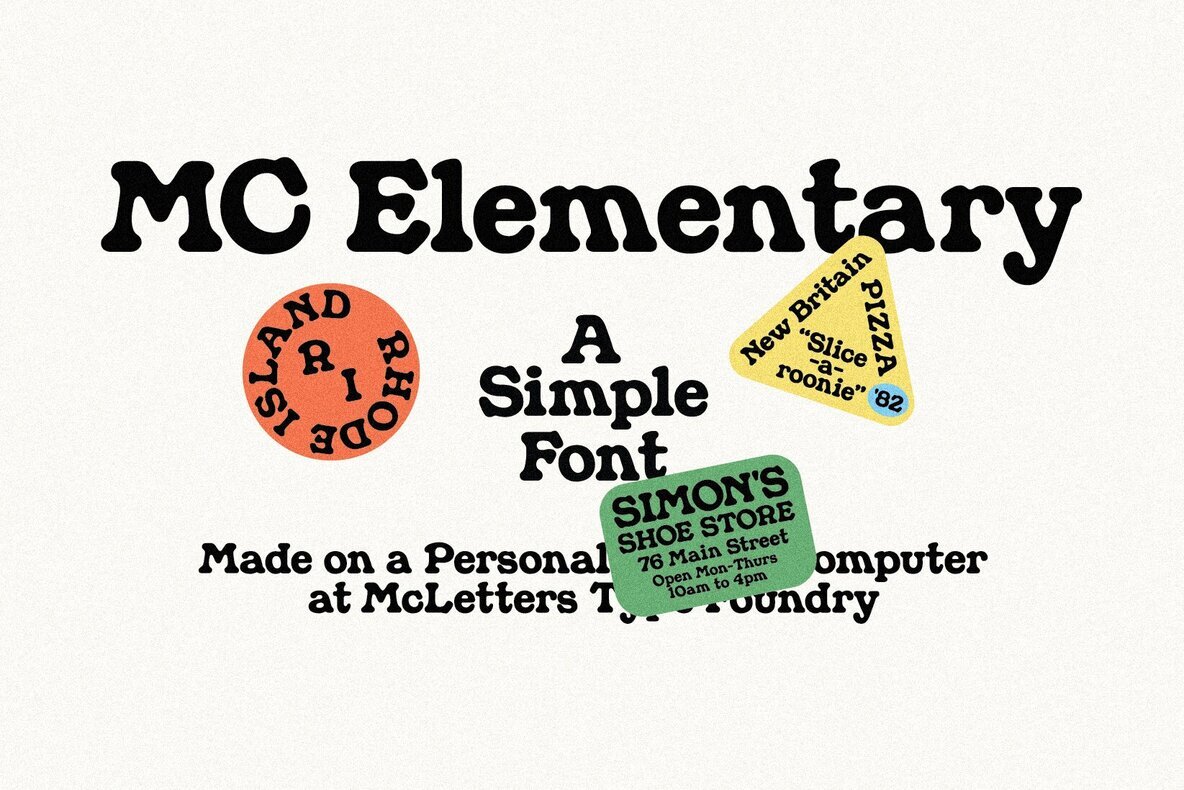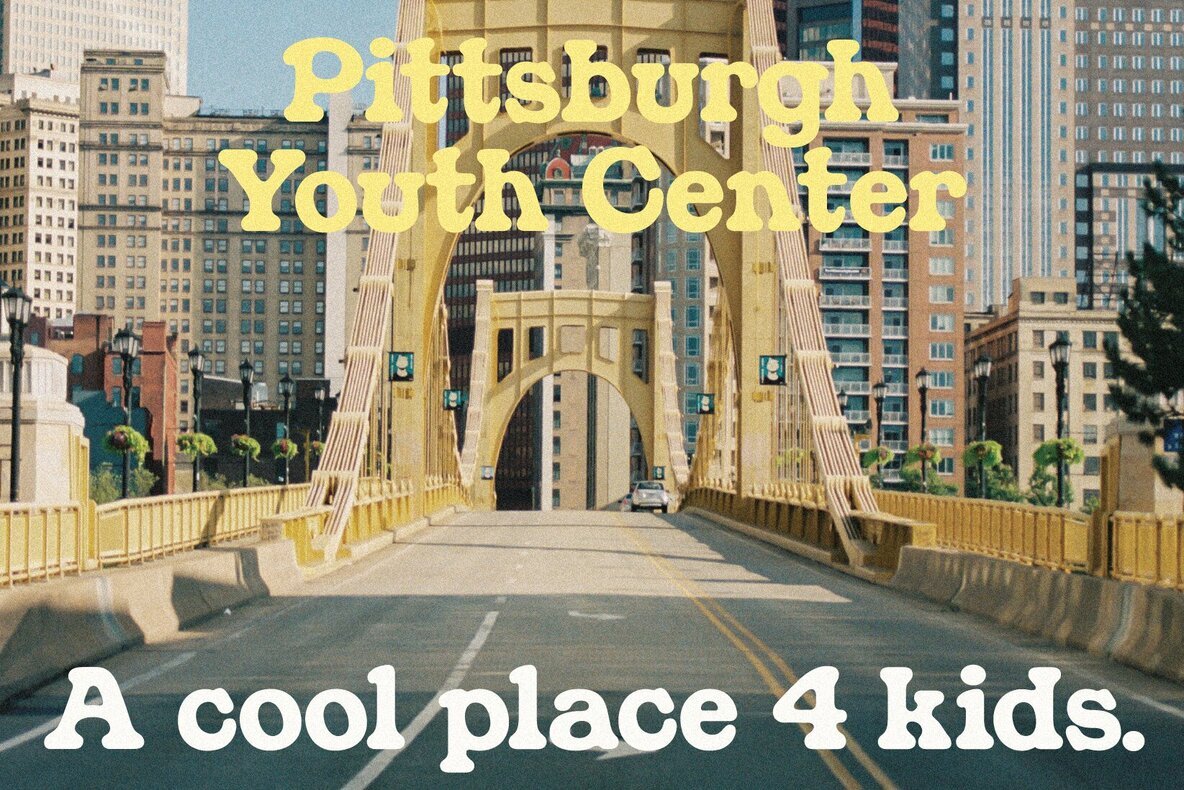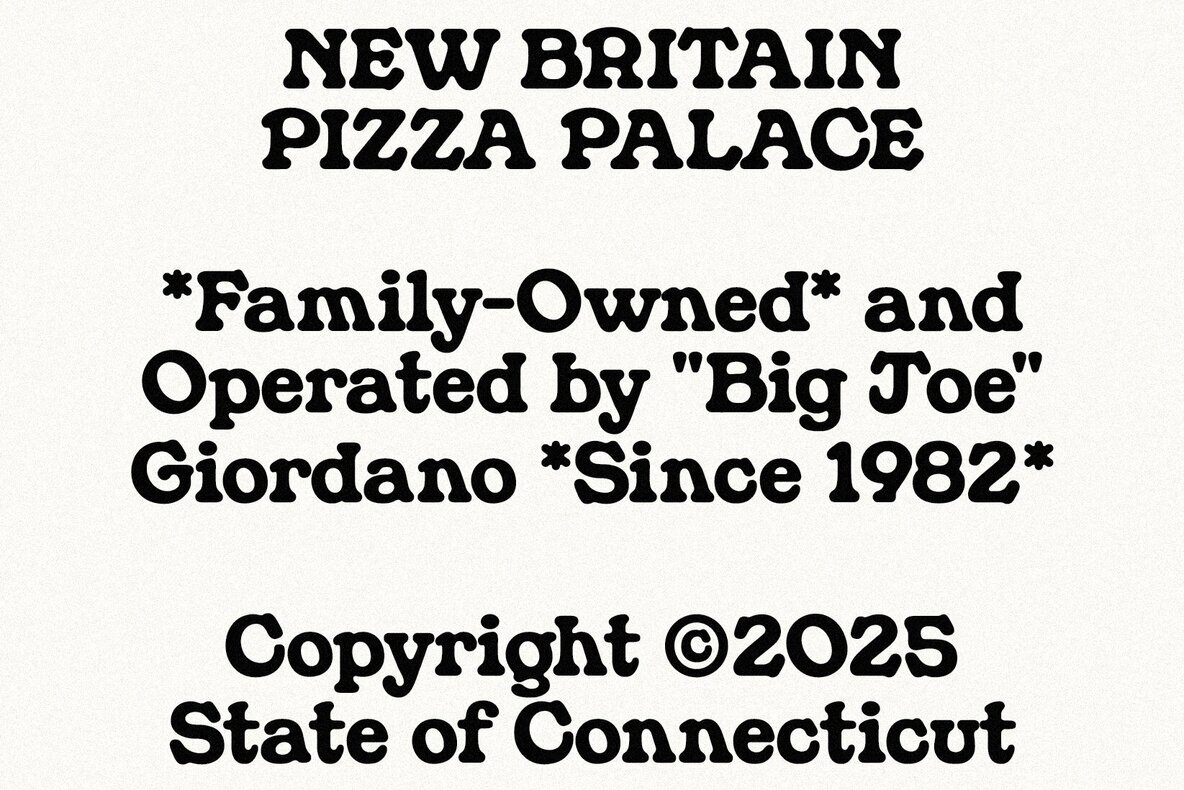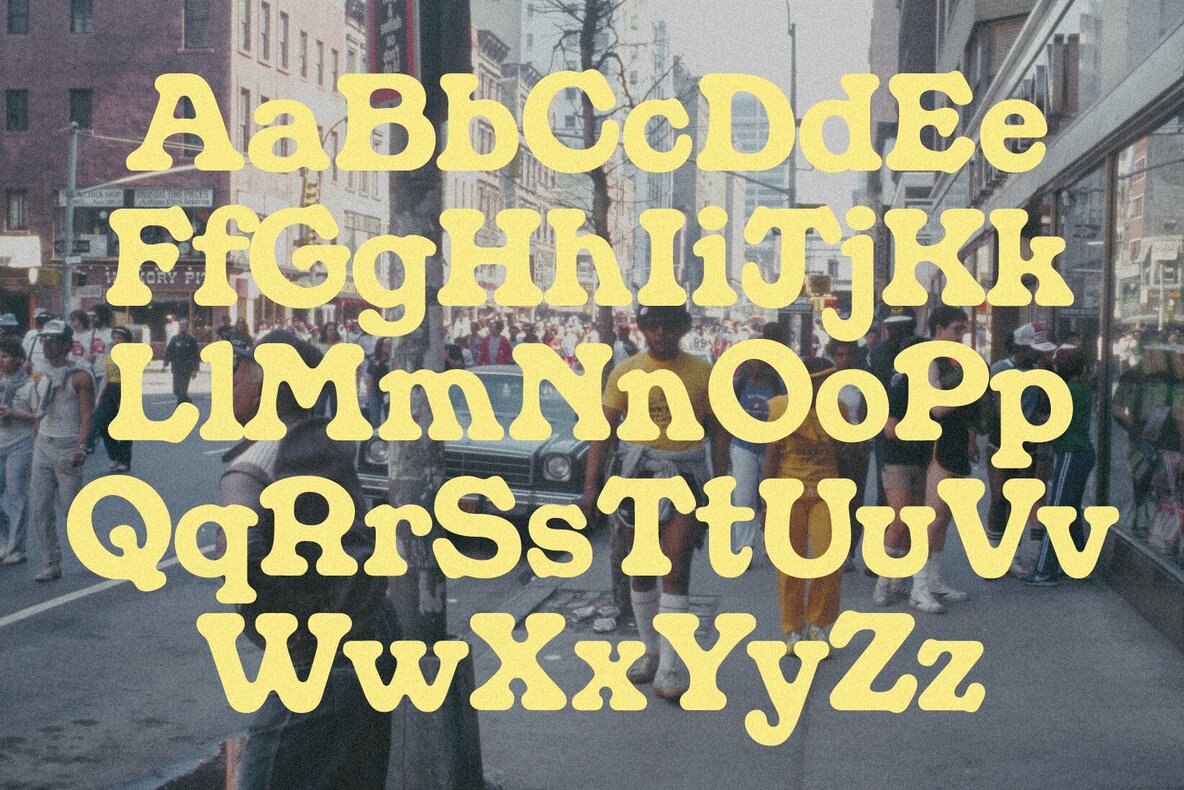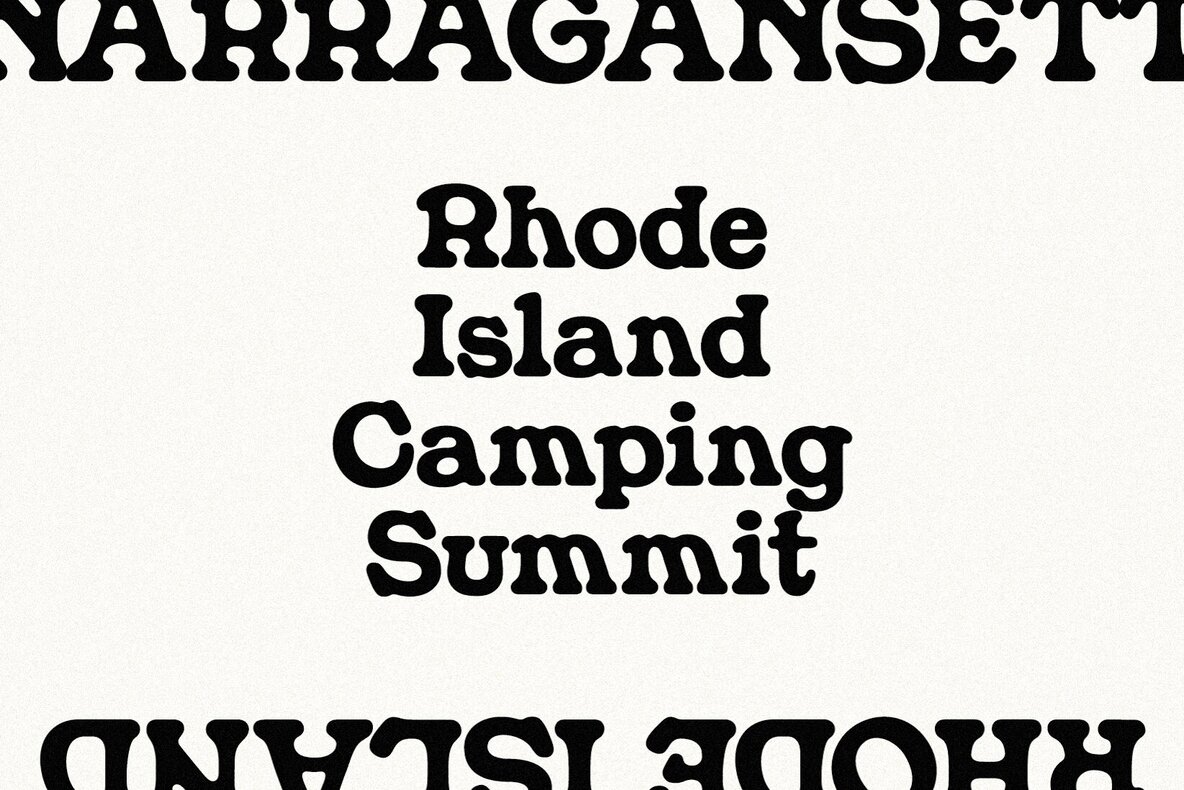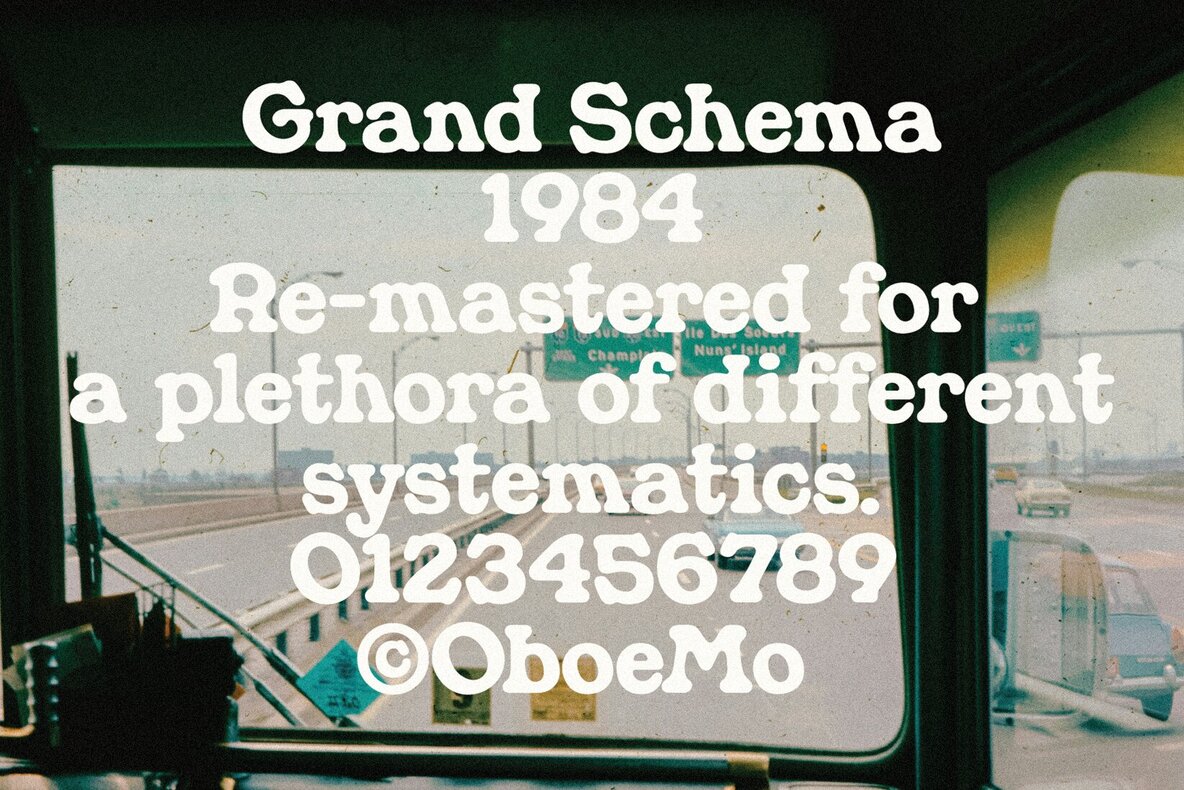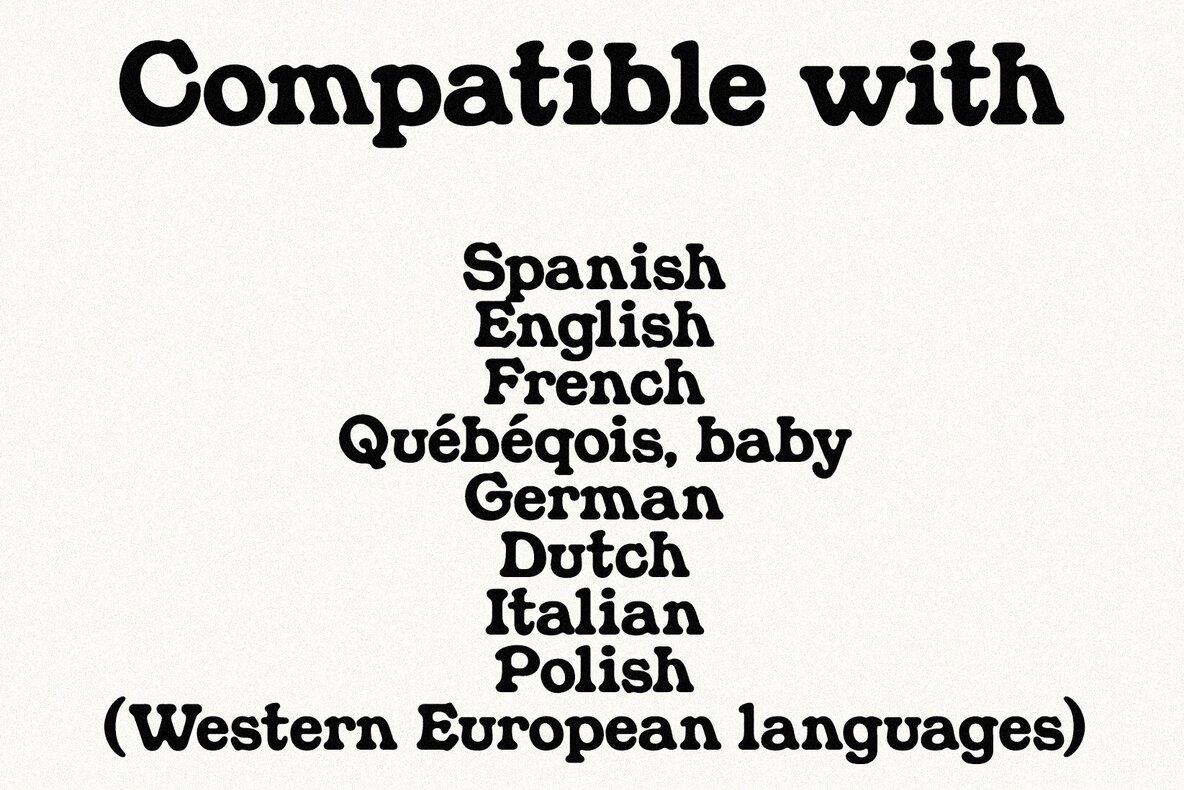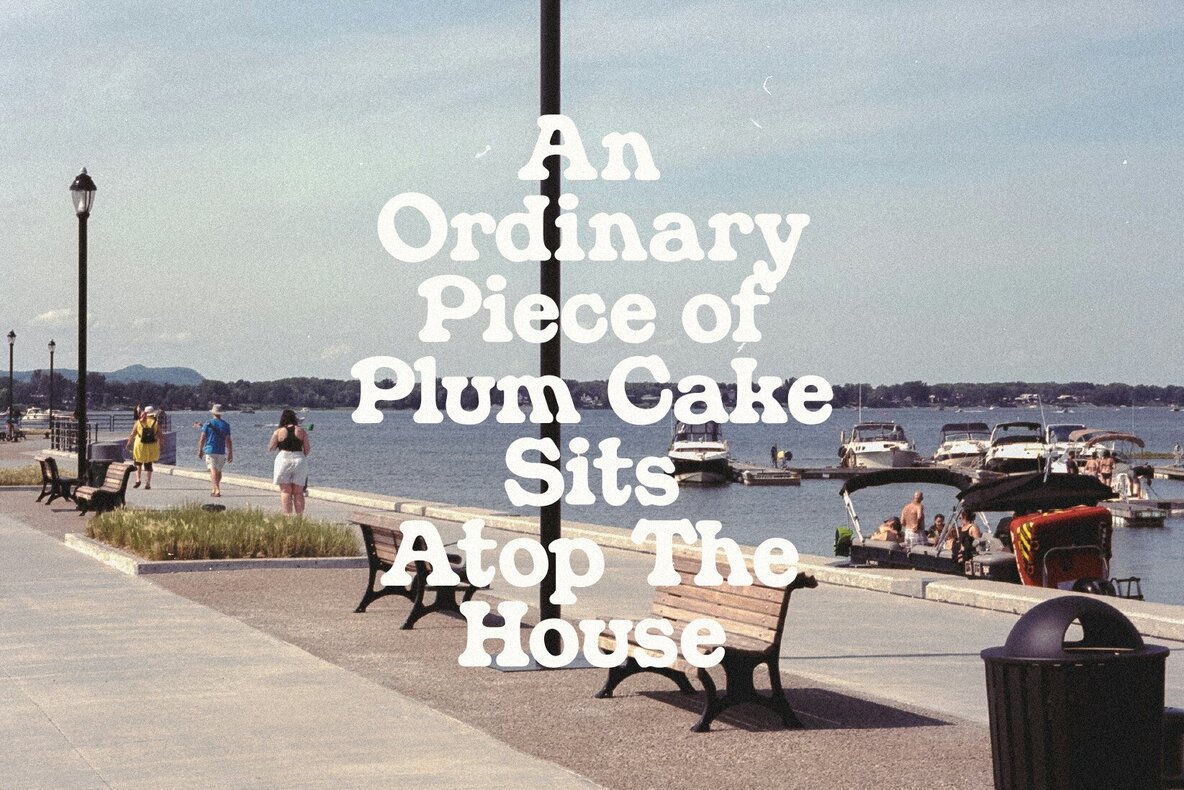
MC Elementary Font
MC Elementary
MC Elementary offers charming nostalgia through its retro, hand-drawn design, ideal for adding whimsy and warmth to a variety of projects. Its organic aesthetic makes it perfect for restaurants, cafés, and informal settings where a playful touch is desired.MC Elementary: A Retro Hand-Drawn Font
Applications and Features
MC Elementary engages with an inviting and unconventional style that stands out in creative projects.